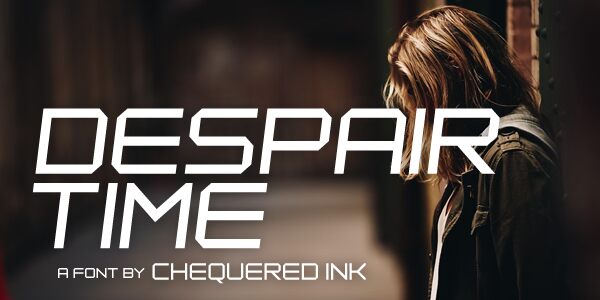
Despair Time Straight
Despair Time Straight is a captivating display font designed by Chequered Ink. With its semi-light weight and extra-expanded width, this techno-inspired typeface is perfect for various creative projects. Its bold and futuristic appearance makes it an ideal choice for gaming logos, cutting-edge technology websites, or sci-fi book covers. Whether you're looking to add a touch of innovation to your branding or create eye-catching headlines, Despair Time Straight will make your designs stand out with its unique blend of style and readability.